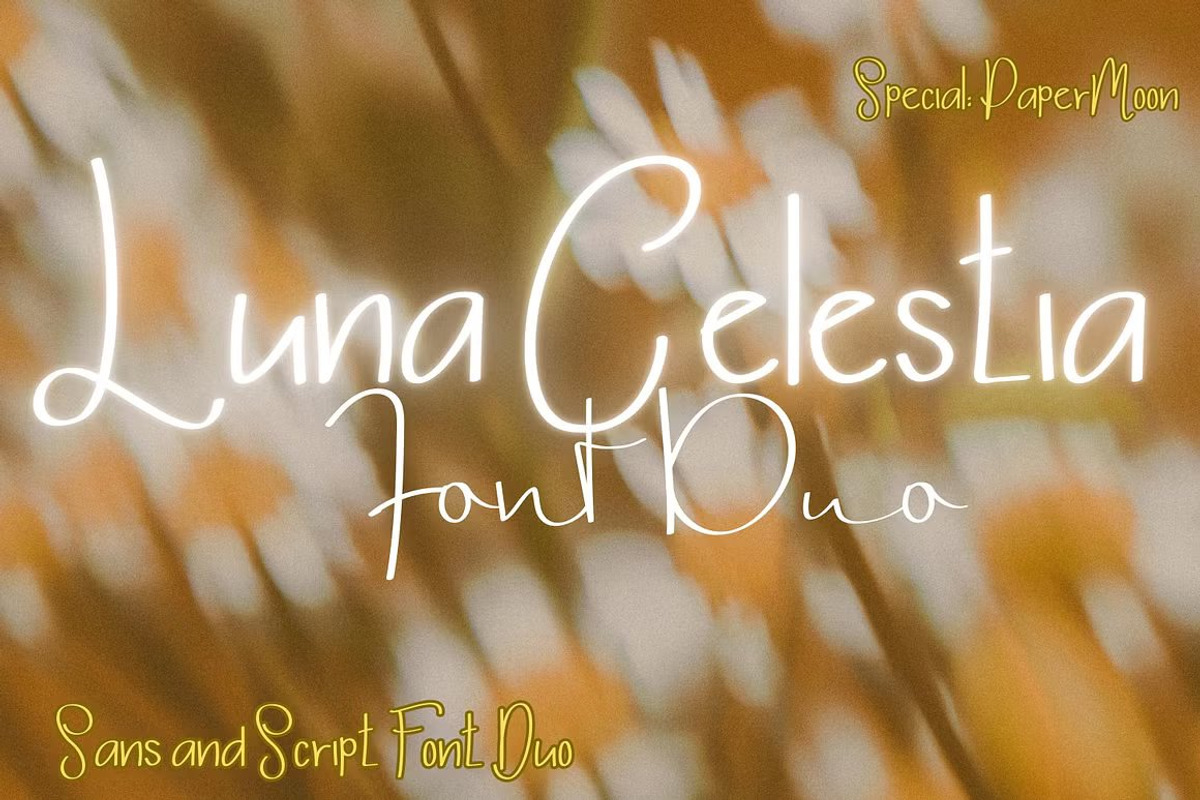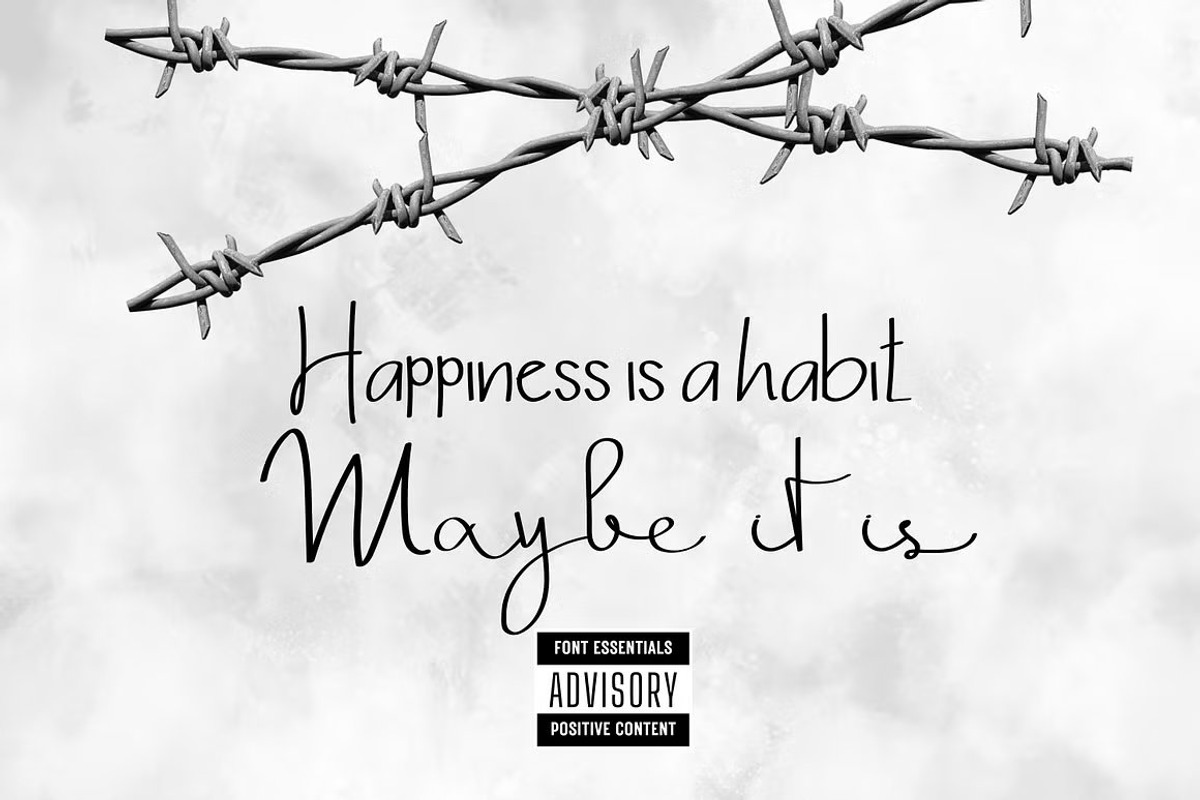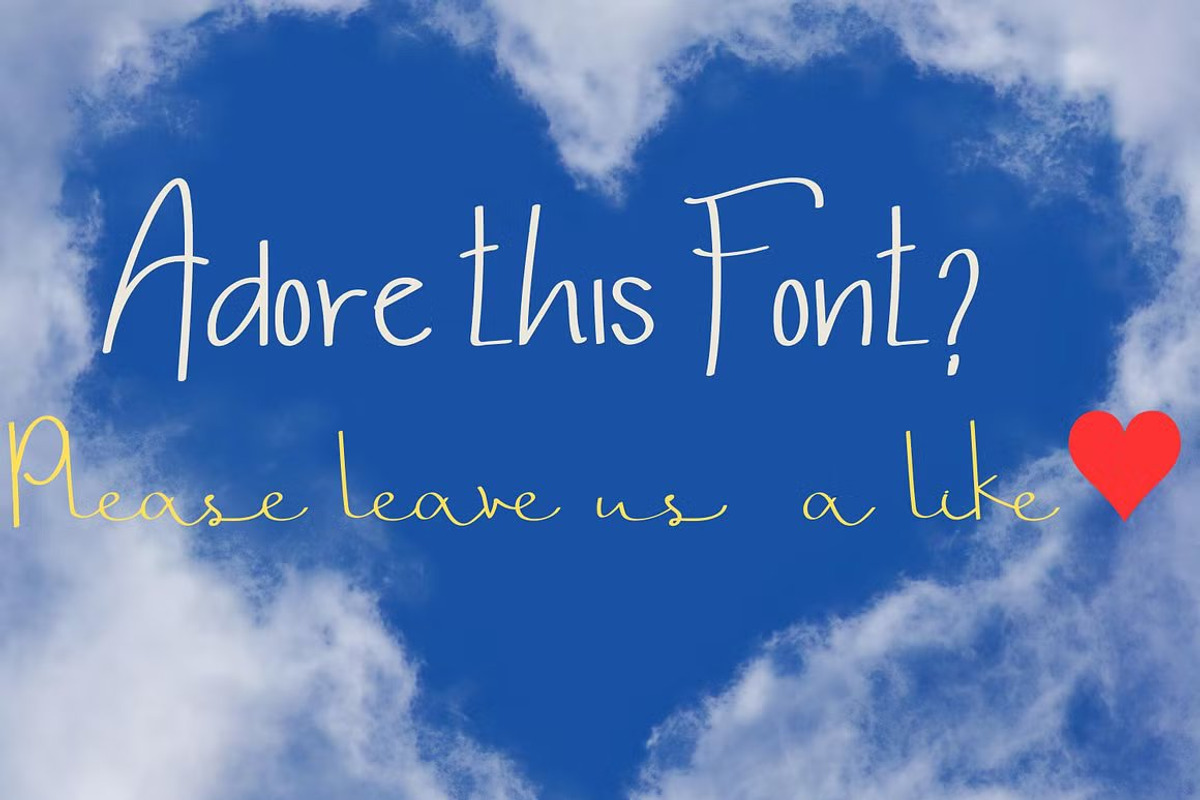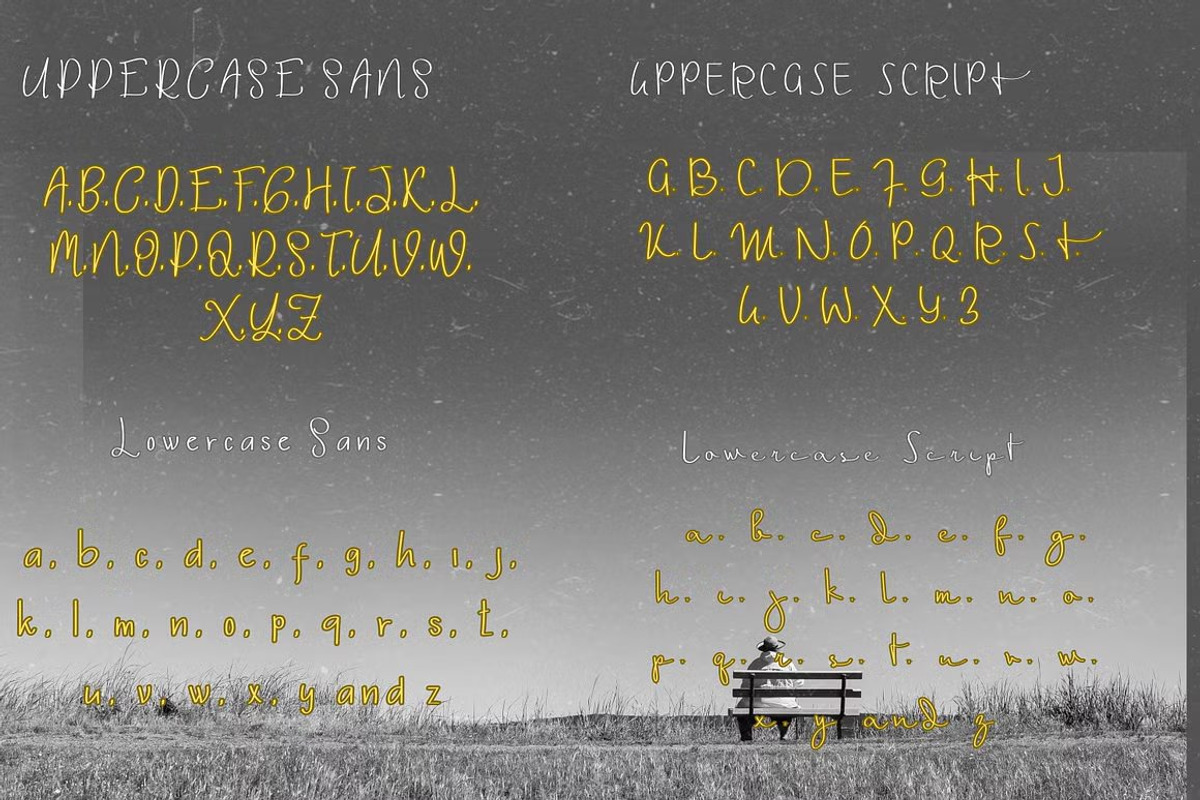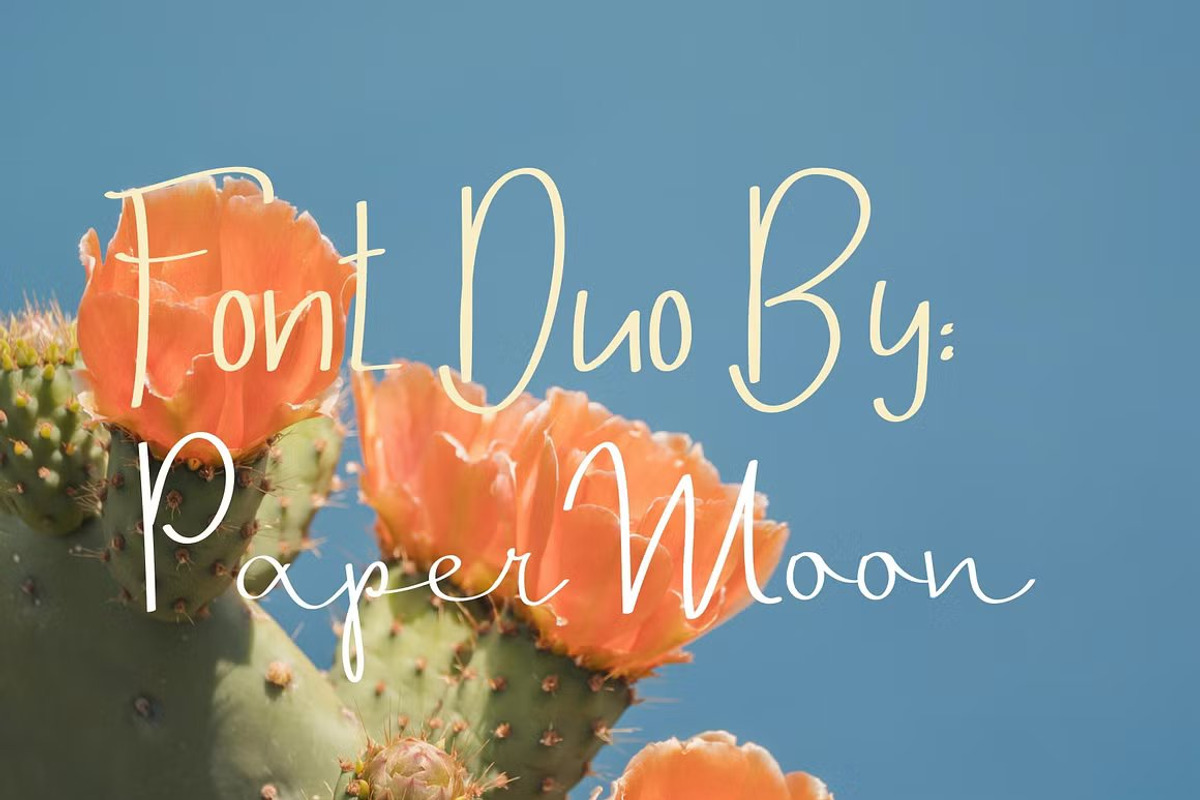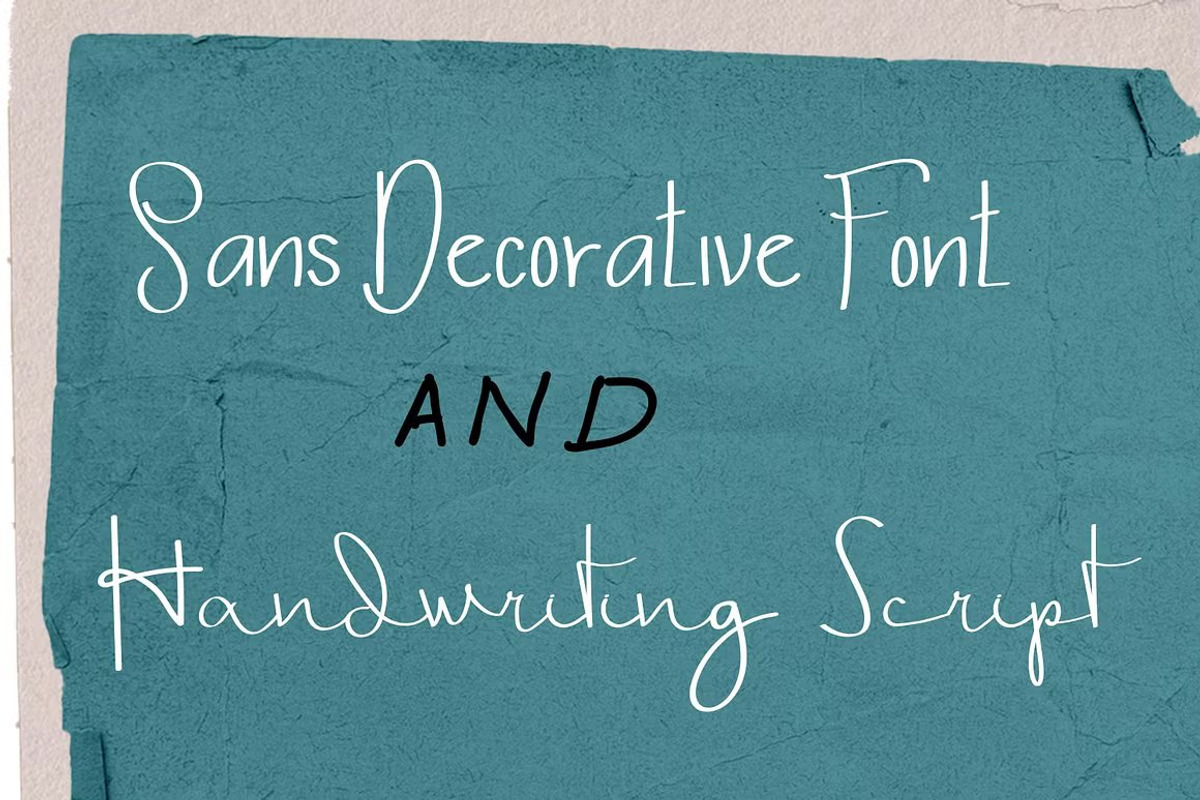
Luna Celestia: Sans and Script Duo
Introducing Luna Celestia Font Duo: A Versatile Typeface for Your Creative Toolkit
Attention creative minds! We’re excited to present the Luna Celestia Font Duo, a dynamic addition to your design arsenal. This font duo features two distinctive styles—a sleek Sans Decorative Font and an elegant Handwriting Script—that pair perfectly to suit a wide range of projects and industries. Whether you’re working on branding, digital marketing, or print materials, Luna Celestia is the perfect choice for your creative endeavors.
Branding: Logos, stationery, business cards, letterheads, folders, and more Promotional Materials: Flyers, brochures, postcards, and other marketing collateral Digital Marketing Assets: Banners, ads, social media covers, and more Personal Invitations, Magazines, Websites, and beyond ⦿ What’s Included in the Zip Package: